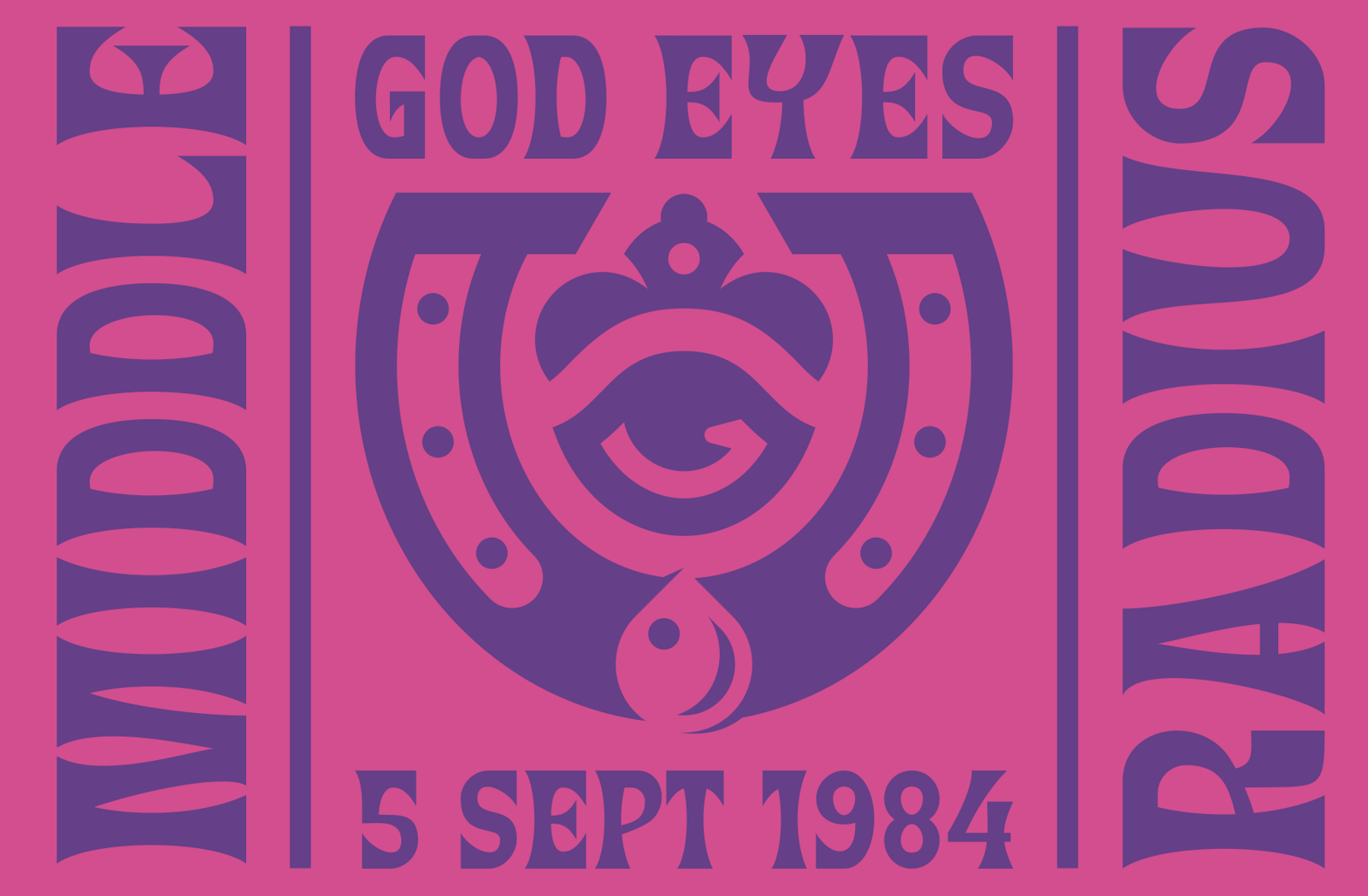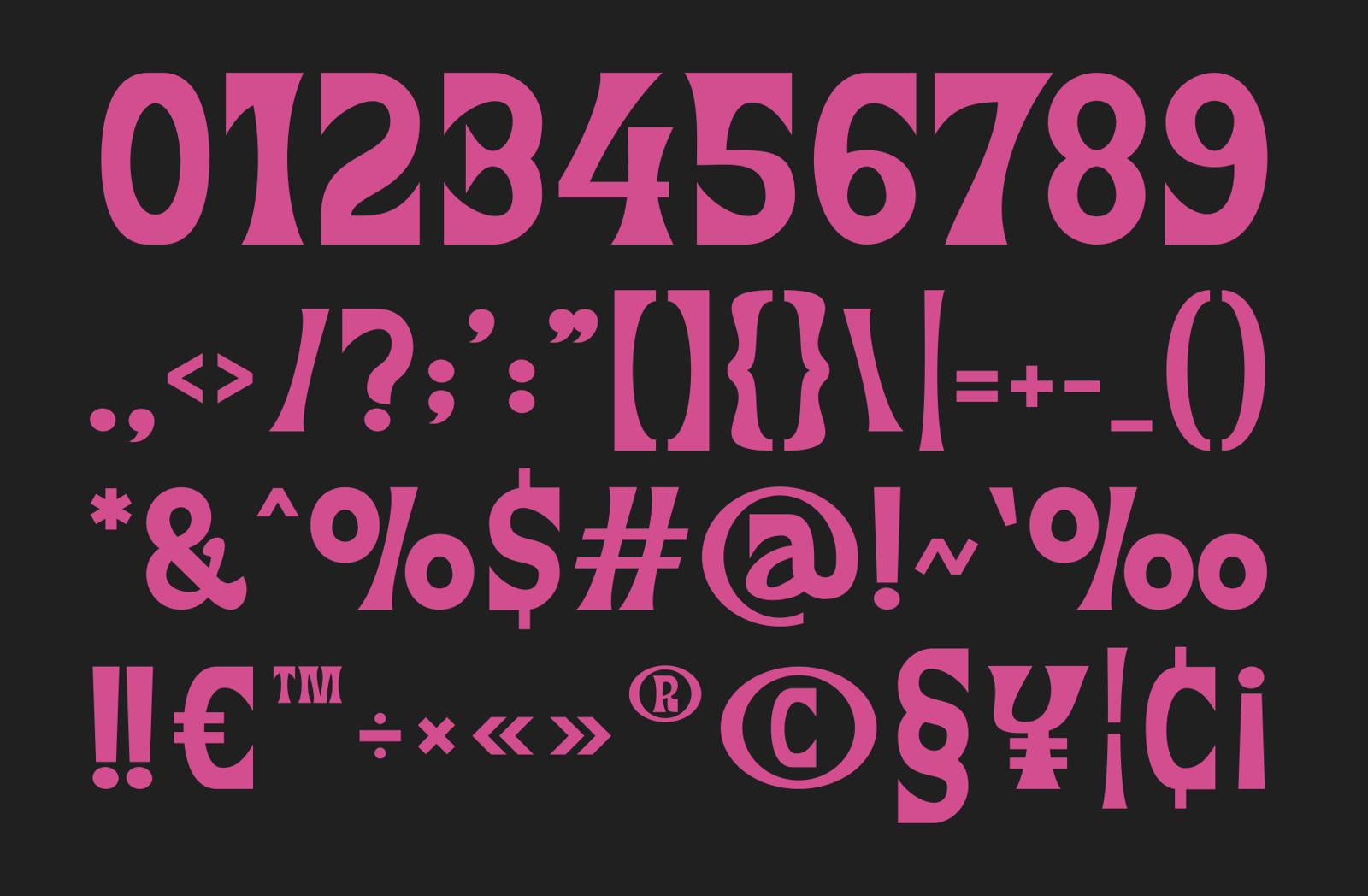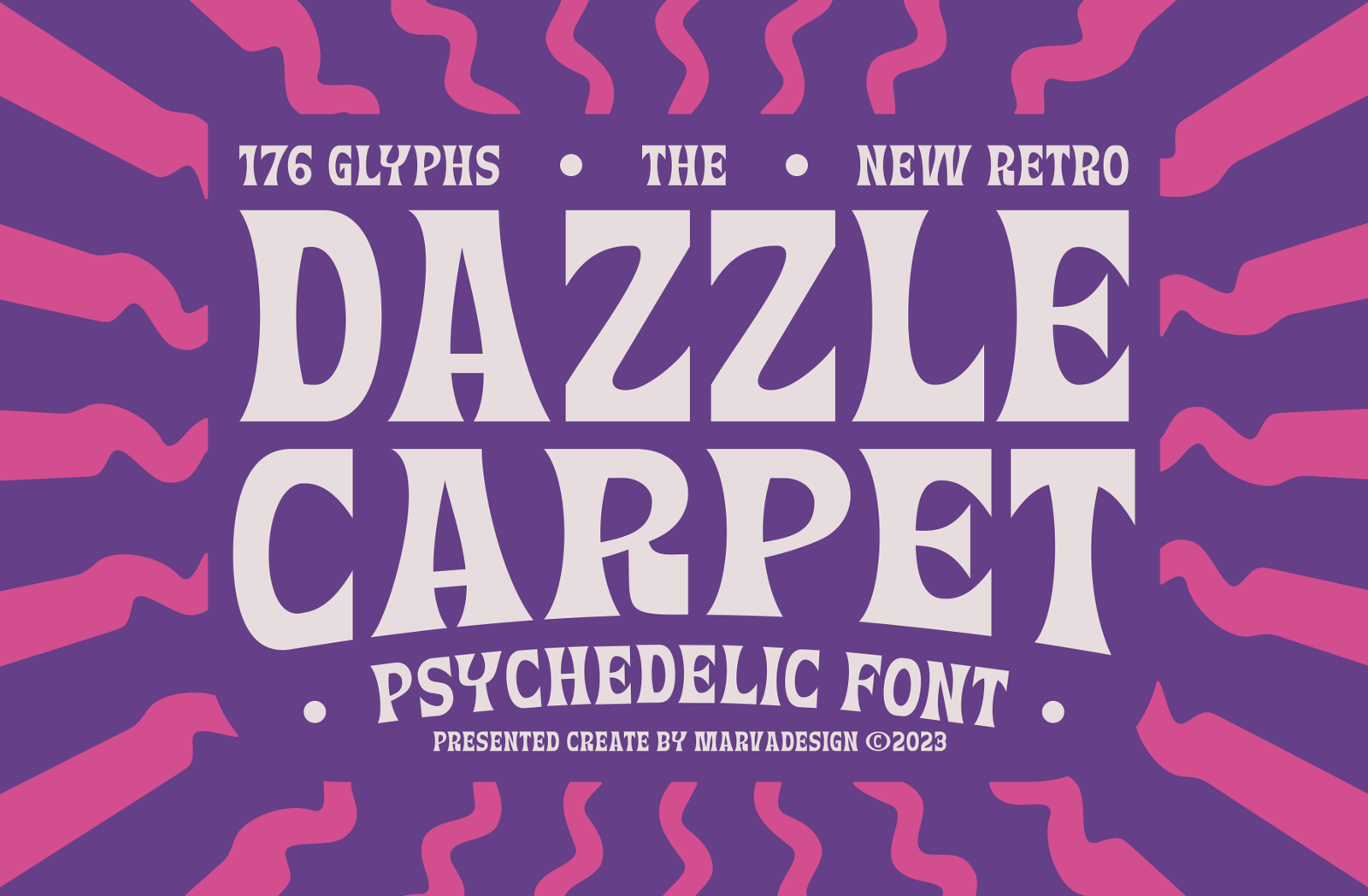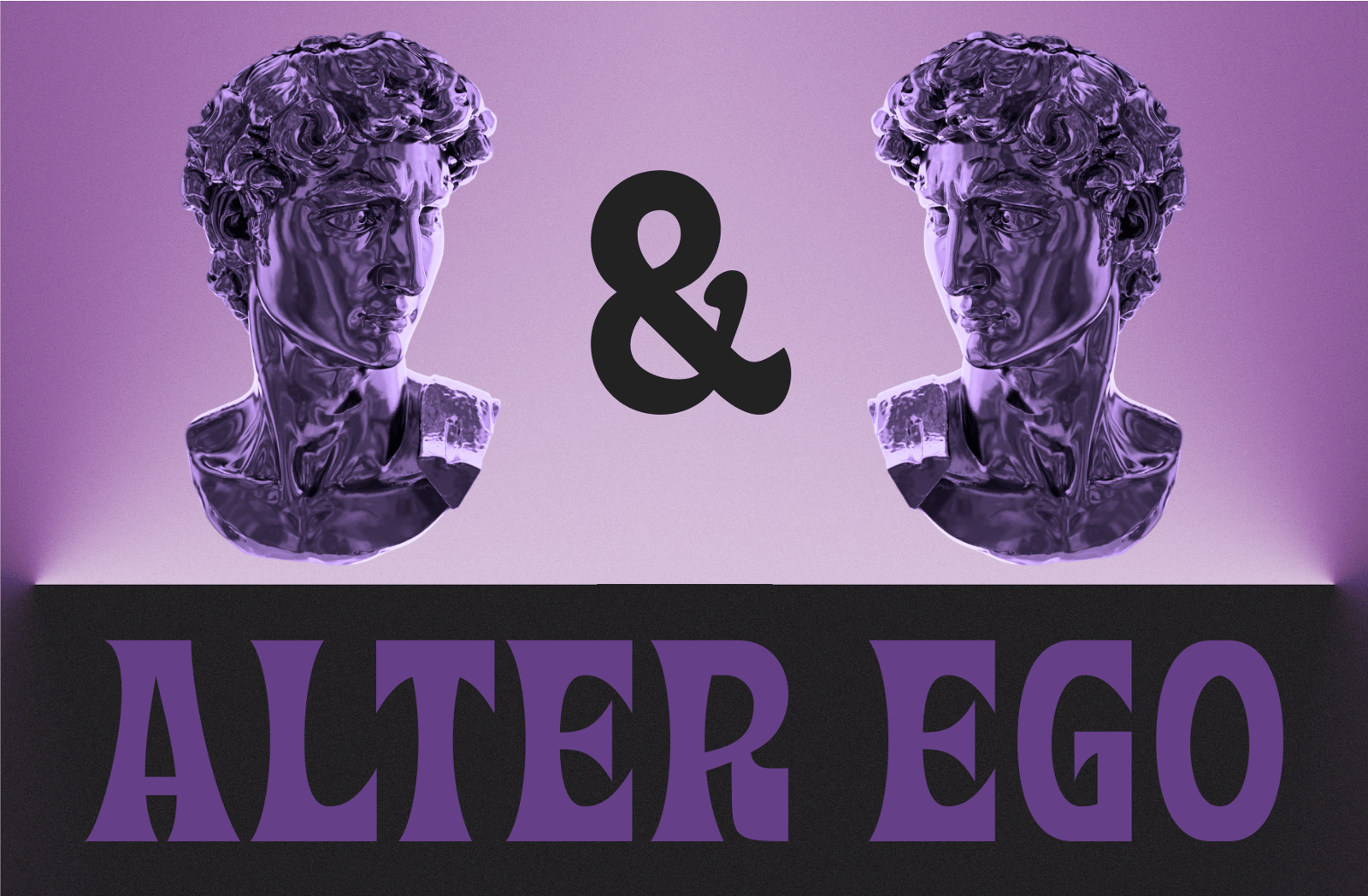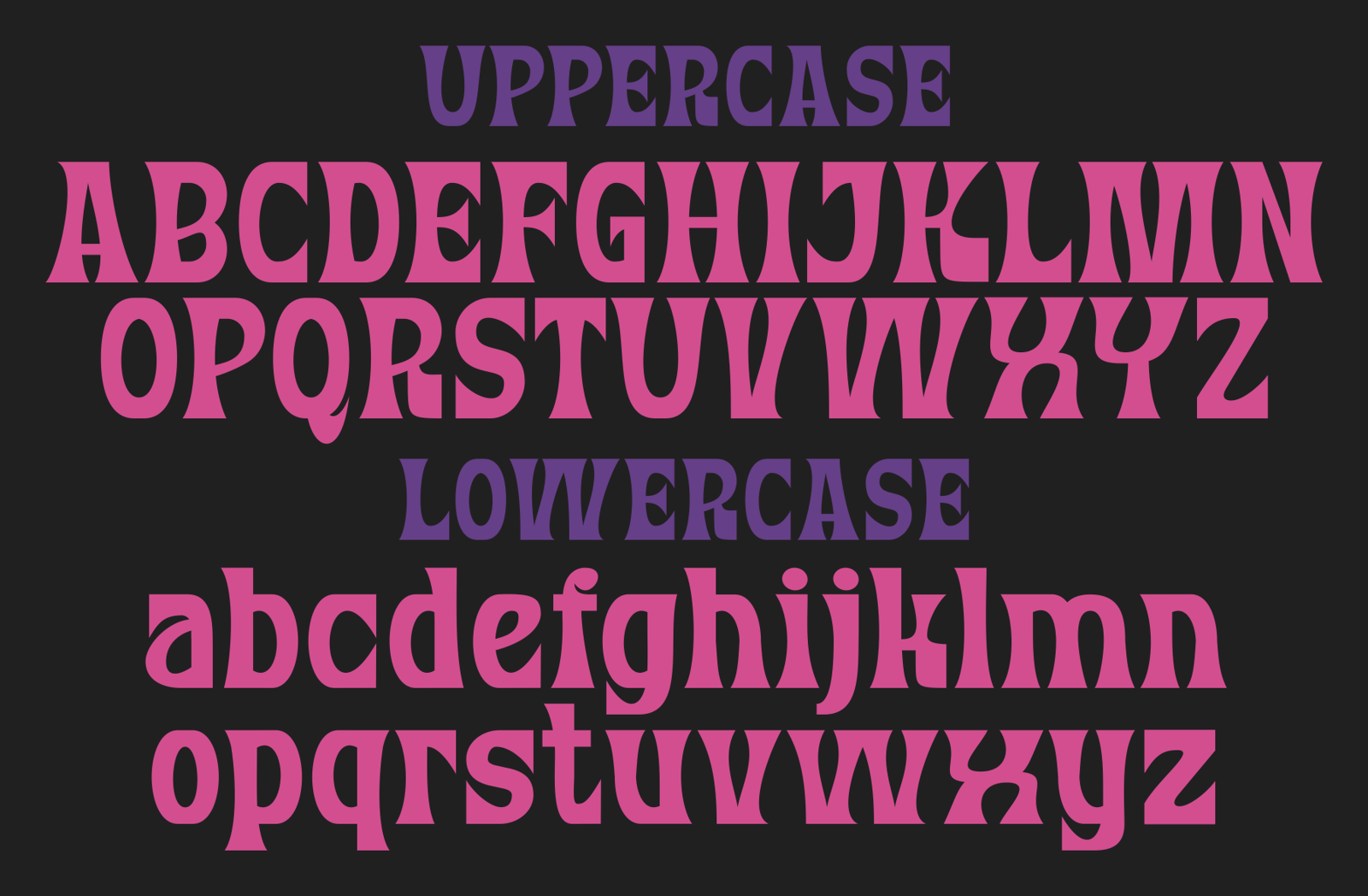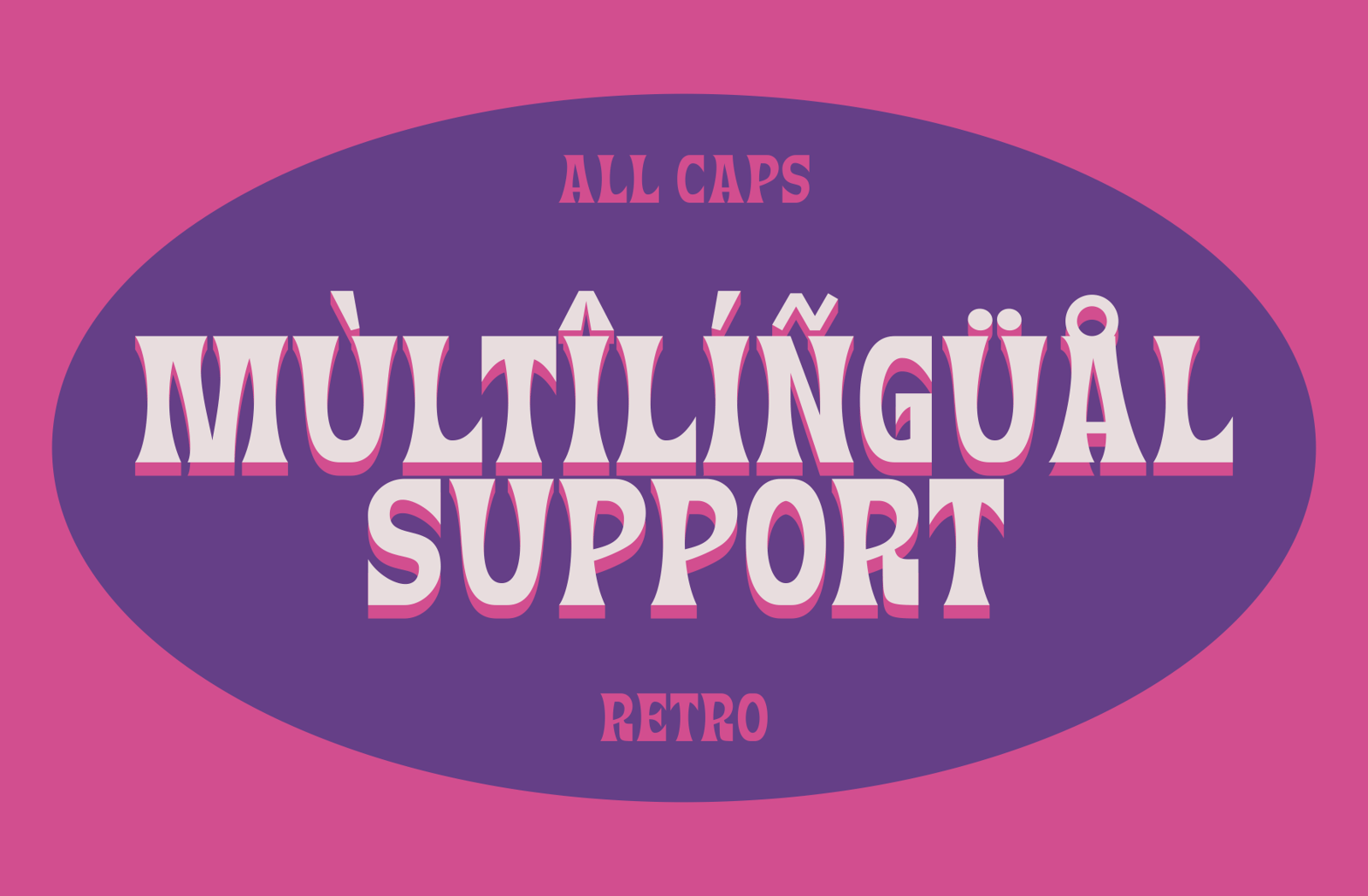
Dazzle Carpet Font
Introducing Dazzle Carpet is a font that’s both modern and playful. Its letters have a fun, swirling style that gives them a psychedelic touch. With a serif design, it brings a classic feel to any project, while its lively curves add a contemporary twist. Perfect for adding a dash of whimsy to your designs!